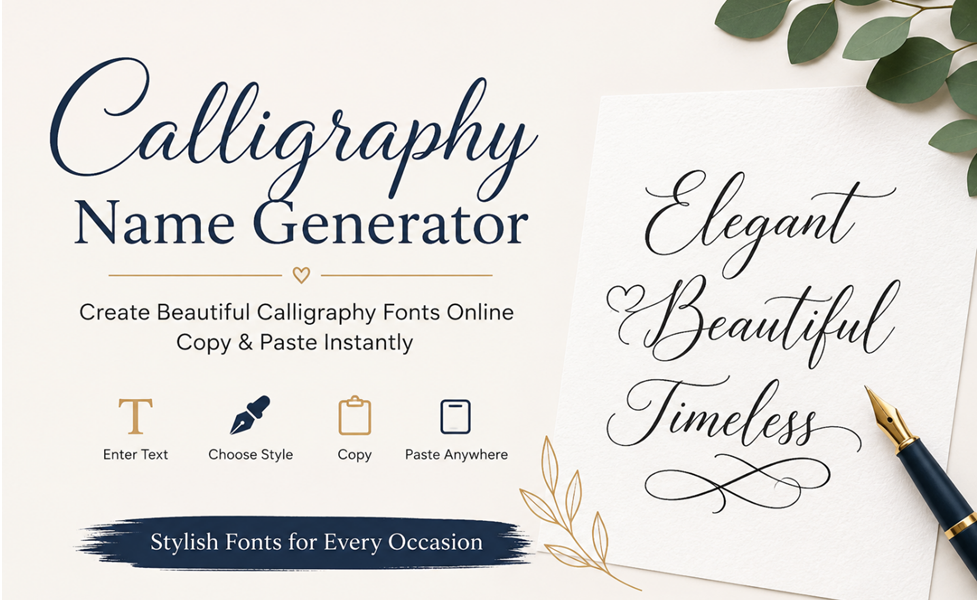
A calligraphy name generator turns your name into elegant, pen-written lettering you can use as a signature, a social media name, a watermark or a wedding place card. This guide shows eight calligraphy name styles, explains which ones work for signatures and which for social media, and walks through making your own name in calligraphy for free with the Calligraphy Font Generator.
Your Name in Calligraphy: Copy and Paste Styles
If your name is going into an app such as Instagram, TikTok or WhatsApp, you need copy and paste text. These styles use Unicode letters, so they keep their look when pasted. Here is how a few names look:
Bold script is the safest choice for names, because every letter comes from one complete alphabet and the weight stays even. Gothic suits gaming names and bold, dramatic profiles. For every letter of the alphabet in each style, see the calligraphy alphabet.
8 Calligraphy Name Styles With Real Fonts
For a signature image, a logo or anything printed, a real calligraphy font looks far better than Unicode letters. All eight fonts below are free on Google Fonts and available in the Calligraphy Font Generator, where you can type your name, choose a colour and download a transparent PNG.
| Font | Look | Best for |
|---|---|---|
| Great Vibes | Flowing, formal copperplate-style script | Wedding names, invitations |
| Pinyon Script | Classic engraved script with fine hairlines | Certificates, formal place cards |
| Alex Brush | Smooth brush script, slightly casual | Social graphics, gift tags |
| Allura | Light, airy and very readable | Email signatures, stationery |
| Parisienne | Rounded, friendly script | Personal brands, bakery and boutique logos |
| Mrs Saint Delafield | Loose, quick handwritten signature | Signature images, watermarks |
| Monsieur La Doulaise | Ornate with large flourishes | Monograms, initials, luxury branding |
| Herr Von Muellerhoff | Tight, slanted autograph style | Realistic signature look |
Tip: signature-style fonts such as Mrs Saint Delafield and Herr Von Muellerhoff look most natural with only a capital first letter. Formal scripts such as Great Vibes and Pinyon Script look best when the name is set fairly large, so the thin strokes stay visible.
Calligraphy Signature Ideas
- First name only: a single word in a flowing script looks confident and stays readable when small.
- Initials monogram: two or three initials in an ornate font such as Monsieur La Doulaise work well on stationery and watermarks.
- First initial plus surname: a classic signature format, for example A. Rahman, written in an autograph-style font.
- Underline flourish: many real signatures end with a sweeping line; add a simple line under the name in your design app.
- One colour: black, navy or dark grey reads as a real ink signature; bright colours look more like a logo.
Is a Calligraphy Name a Legal Signature?
A name typed in a calligraphy font is fine for email sign-offs, watermarks and design. For contracts and official forms, rules differ by country and document: many e-signature services accept a typed or drawn name, while some documents still require a handwritten or certified digital signature. If in doubt, check with the organisation that asked you to sign. If you want your real handwritten signature to look more elegant, practise the basic strokes in our hand lettering for beginners guide.
Can I use a calligraphy name on Instagram?
Yes. Copy a Unicode style such as bold script and paste it into your Instagram name or bio. Keep your username in plain letters so people can search for you.